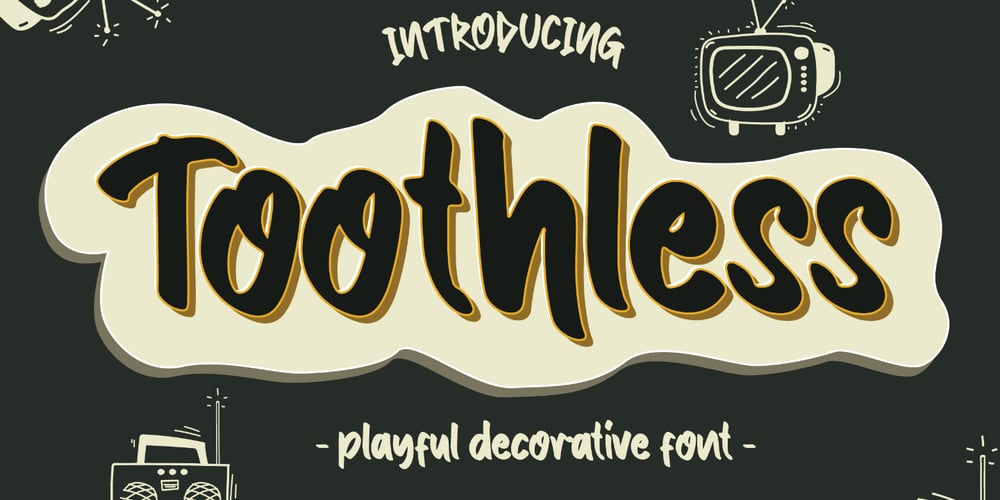
Toothless
Toothless font
Toothless Font Family was designed by Studio LetterStock and published by LetterStock. Toothless contains 1 styles and family package options. **Toothless Font** This pair was inspired by the playful kids poster design that i saw on some coffee shop, It was crafted by hand specially to add natural handmade feeling in its brand identity than i make it clean with pentool. **Opentype features**Toothless font has 170 character set included Toothless Font is very good looking in logo, labels, product packaging, invitations, advertising and others. This fonts works with folowing languages: Afrikaans, Albanian, Asu, Basque, Bemba, Bena, Chiga, Cornish, Danish, English, Estonian, Filipino, Finnish, French, Friulian, Galician, German, Gusii, Indonesian, Irish, Italian, Kabuverdianu, Kalenjin, Kinyarwanda, Low German, Luo, Luxembourgish, Luyia, Machame, Makhuwa-Meetto, Makonde, Malagasy, Malay, Manx, Morisyen, North Ndebele, Norwegian Bokmål, Norwegian Nynorsk, Nyankole, Oromo, Portuguese, Romansh, Rombo, Rundi, Rwa, Samburu, Sango, Sangu, Scottish Gaelic, Sena, Shambala, Shona, Soga, Somali, Spanish, Swahili, Swedish, Swiss German, Taita, Teso, Vunjo, Zulu Thank you for using this font.LS